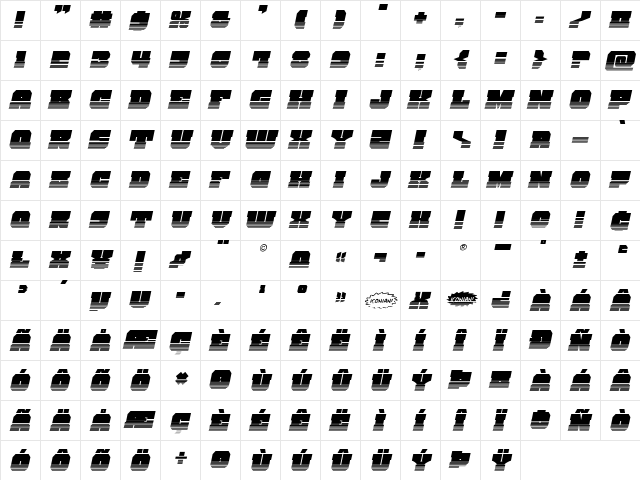
Kittrick Halftone Italic Italic
Design Context for Kittrick Halftone Italic Typeface
Kittrick Halftone Italic is a composed and adaptable typeface that performs quietly and consistently across a wide range of design contexts. The dynamic lean of this cut emphasises speed and emphasis in any layout.
Pro Tip: Try Kittrick Halftone Italic for annotation and caption copy alongside an upright companion — the contrast in angle creates a dynamic but ordered typographic system.